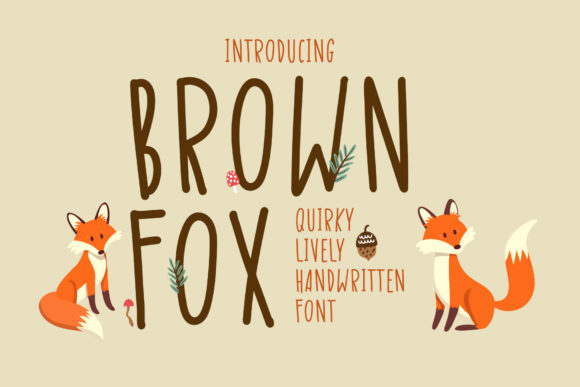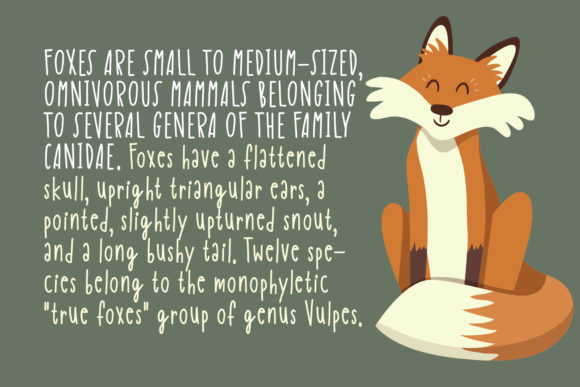
About Brown Fox Font
Brown Fox is a font that exudes sweetness and friendliness, making it a delightful choice for a wide range of design projects. Its handwritten style enhances your creations, adding a touch of warmth and authenticity that captivates the eye.
With its sweet and natural essence, Brown Fox brings a sense of charm and playfulness to your designs. Whether you’re working on social media graphics, quotes, greeting cards, logos, business cards, or any other project, this font elevates each creation with its delightful allure.
Brown Fox’s handwritten appearance adds a personal and unique touch to your designs, making them feel genuine and special. It’s like a brush of creativity that infuses your creative ideas with a sense of joy.
Incorporating Brown Fox into your designs allows you to explore a wide range of creative possibilities. Its adaptability serves as a canvas for your imagination, empowering you to create visually stunning and captivating designs.
The beauty of Brown Fox lies in its versatility, where the only limit is your imagination. Let it be the font that sets your creativity free, allowing you to express your ideas in delightful and heartwarming ways.
Fall in love with Brown Fox’s sweet and friendly style as it transforms your ideas into spectacular designs that resonate with charm and authenticity.
In summary, Brown Fox is more than just a font; it’s a sweet and friendly companion that enhances your creative ideas. Embrace its warmth and notice how it adds a touch of magic to your projects. With Brown Fox, your designs become true expressions of joy and authenticity, leaving a lasting impact on all who encounter them. Let Brown Fox be the font that brings a burst of creativity to your designs, creating a world of endless possibilities and capturing the hearts of your audience.